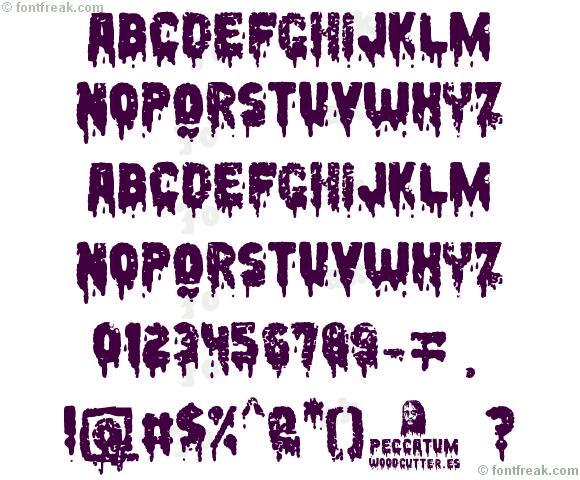
Peccatum
Peccatum, designed by woodcutter Manero, is a striking display typeface that captures attention with its unique aesthetic. This font exemplifies a decorative style with a bold and experimental approach. Its visual characteristics include a heavy stroke weight and an uneven, dripping effect that gives it an organic, almost primal feel. The contrast in the letterforms creates an engaging visual dynamic, while the spacing allows for clear legibility, making it suitable for various applications.
Peccatum is particularly well-suited for creative projects that require a touch of the unconventional. It can enhance the impact of wedding invitations, adding a dramatic flair that makes them memorable. Additionally, its bold appearance works beautifully for movie posters, where it can evoke a sense of urgency or intrigue. Restaurant menus can also benefit from Peccatum's unique style, especially in establishments aiming for a modern or edgy vibe. Content creators looking to make their social media graphics stand out will find this font invaluable for titles and headlines, ensuring that their work captures the viewer's eye.
The target audience for the Peccatum font includes graphic designers, small business owners, and content creators who seek to infuse their projects with a distinctive character. Its freeware license makes it accessible for anyone looking to experiment with typography in their designs.
What sets Peccatum apart is its ability to convey emotion and personality through its unconventional forms. This font not only captures attention but also leaves a lasting impression, making it an exceptional choice for those wanting to make a bold statement. For those interested, a Peccatum font free download is readily available, encouraging creativity without financial constraints.